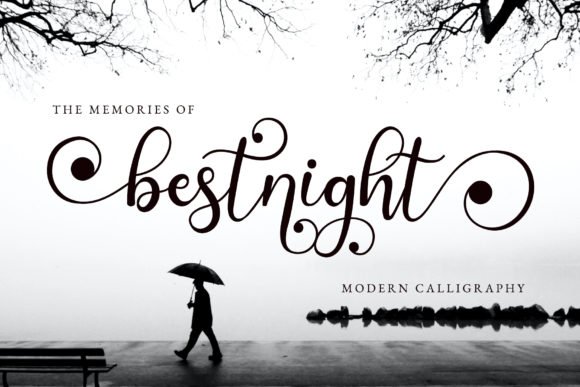
Introduction to Bestnight Font
Bestnight is an elegant and flowing handwritten font.
It is PUA encoded which means you can access all of the glyphs and swashes with ease It features a varying baseline, smooth lines, gorgeous glyphs and stunning alternates.
Key Features of Bestnight Font